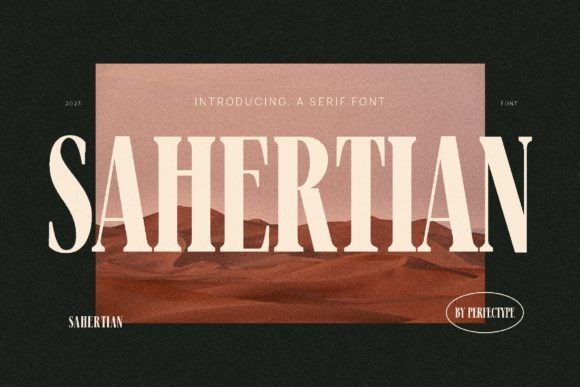
Step into the world of Sahertian, the serif font family that breathes life into your creative visions. With its modern and unique shape, this font embodies the essence of natural writing, allowing you to craft typographic designs that captivate and inspire.
Unleash your imagination with Sahertian, the perfect font for movie scripts, branding, web design, editorial projects, prints, crafts, and quotes. Its versatility knows no bounds, whether you're designing logotypes, wedding invitations, romantic cards, labels, packaging, or personalizing names.
Elevate your creativity to new heights with Sahertian, the font that transforms your words into art. Experience the joy of seamless design as you bring your ideas to life with effortless grace.
Dive into the world of Sahertian and discover the endless possibilities of typographic expression. Let your creativity soar and witness the magic unfold as your designs take on a life of their own.
Don't settle for ordinary fonts. Embrace the extraordinary with Sahertian, the font that will leave an unforgettable impression on your audience.
Unlock the power of Sahertian today and elevate your creative projects to new heights. Let your imagination run wild and create designs that speak to the heart and soul.